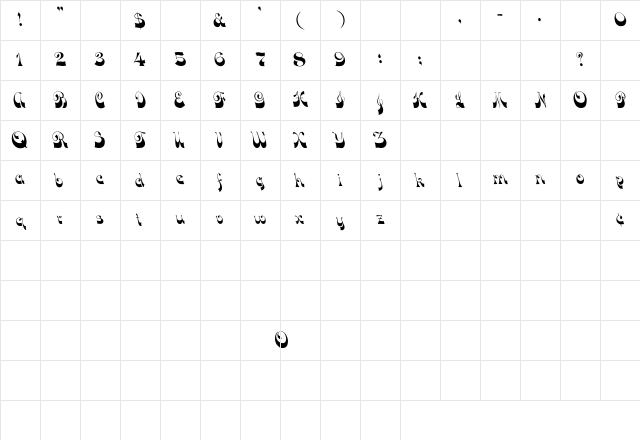
DownWind Regular Free Font
DownWind Regular
Design Context for DownWind
DownWind is a composed and adaptable typeface that performs quietly and consistently across a wide range of design contexts.